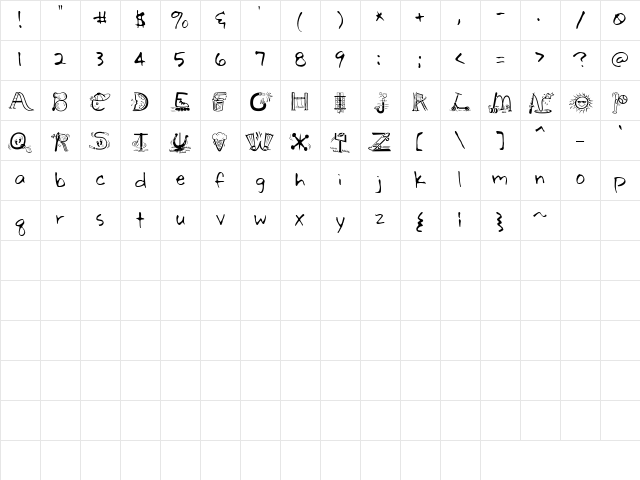
LD Summer Break Regular
Design Context for LD Summer Break
LD Summer Break is a composed and adaptable typeface that performs quietly and consistently across a wide range of design contexts.